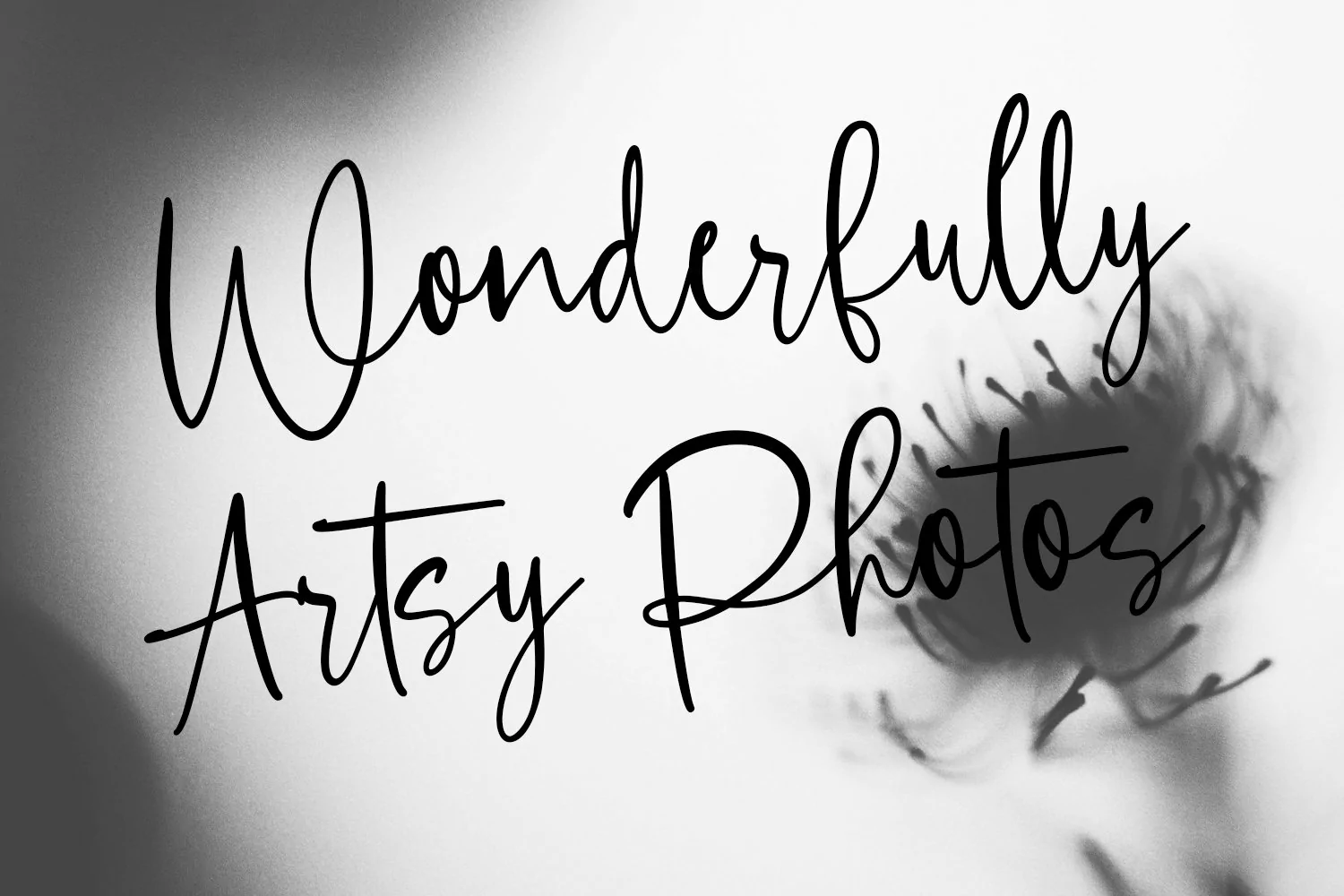
Asterikats Beauty Feminine Script Font is beautiful script made by love. Asterikats Beauty Feminine Script Font with natural handwriting touch is suitable for you who needs a typeface for Headline, Apparel, Invitation, Branding, Wedding, Logo Design, Lettering, Logotype, Clothing, Poster, Magazine and other design project.
- Alternate
- Stylish Handwritten Style